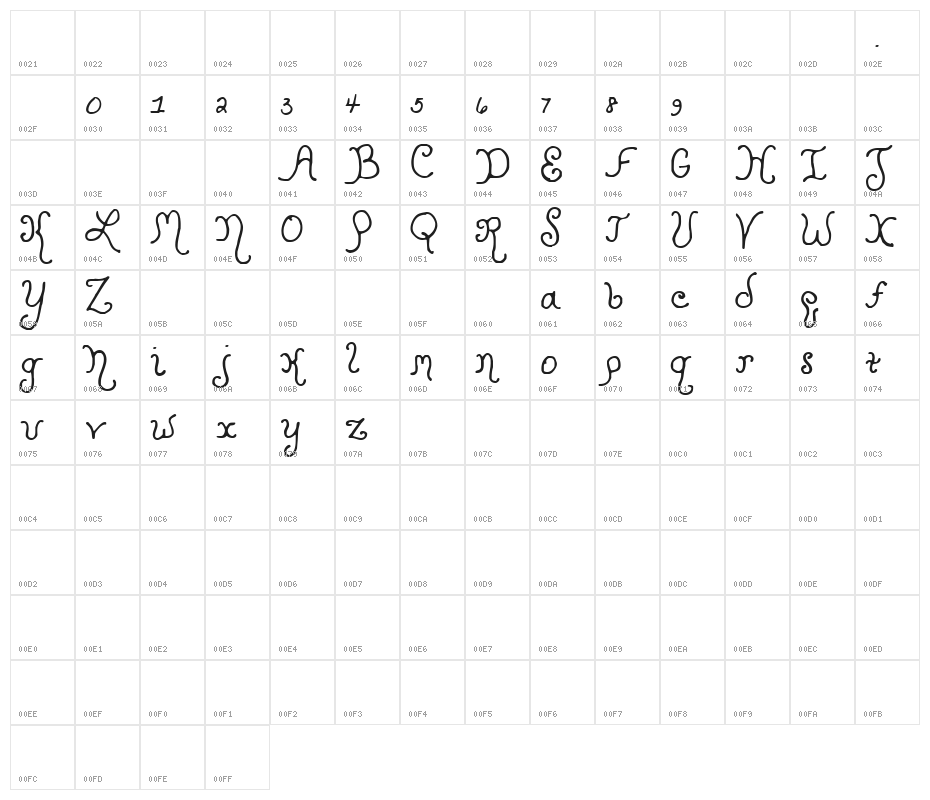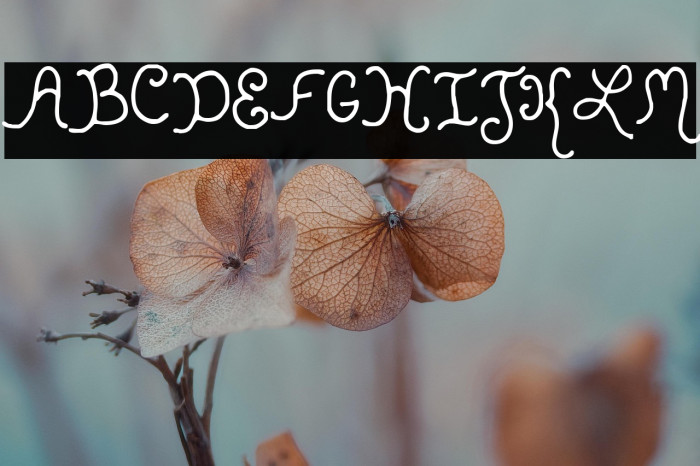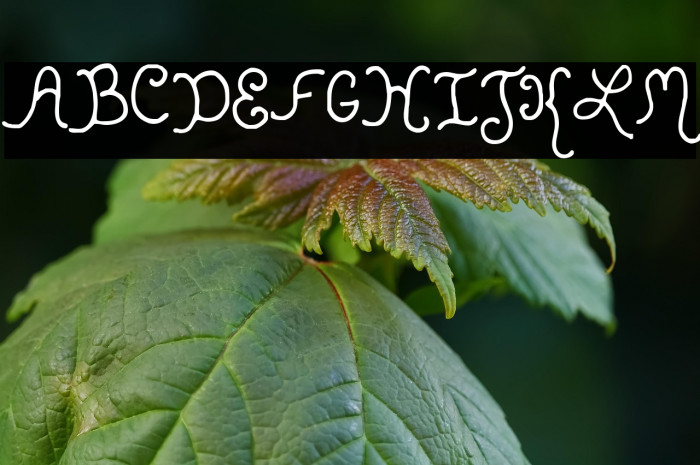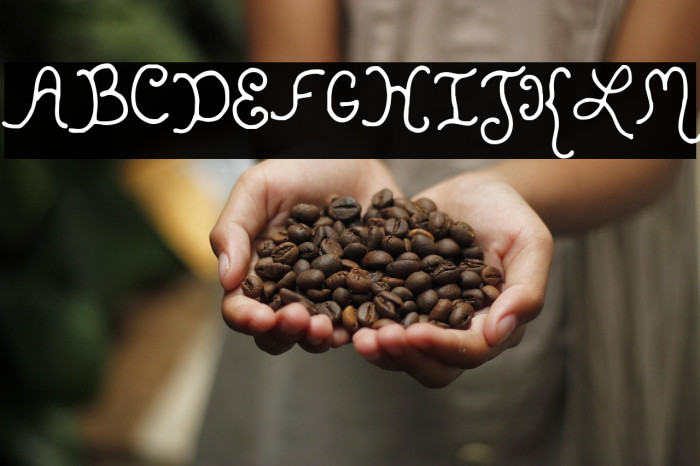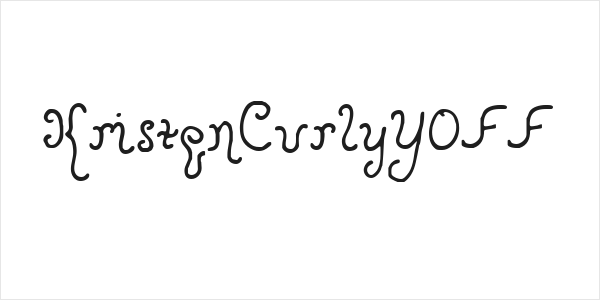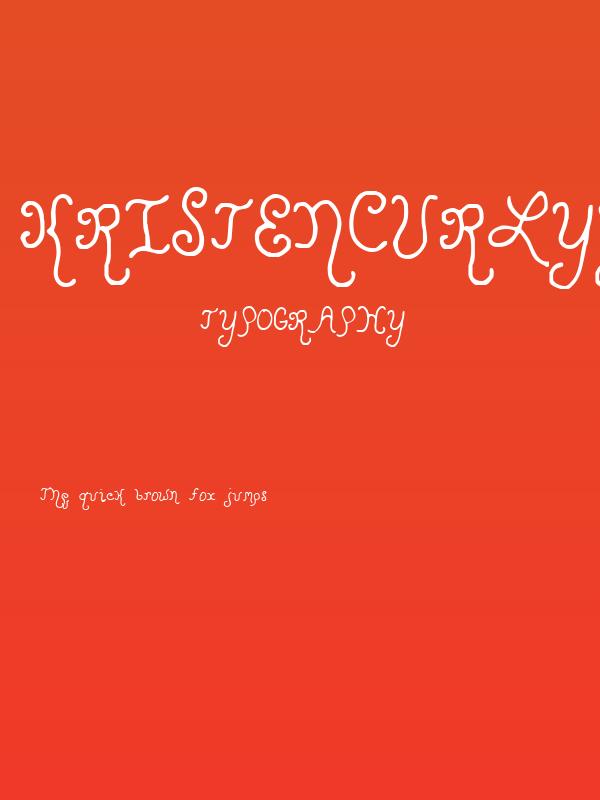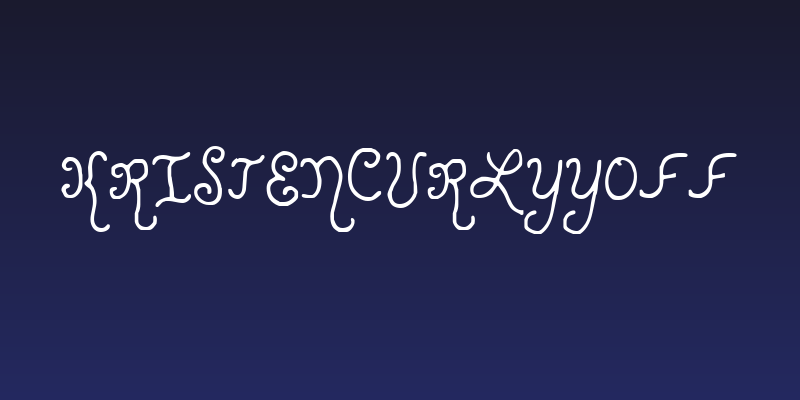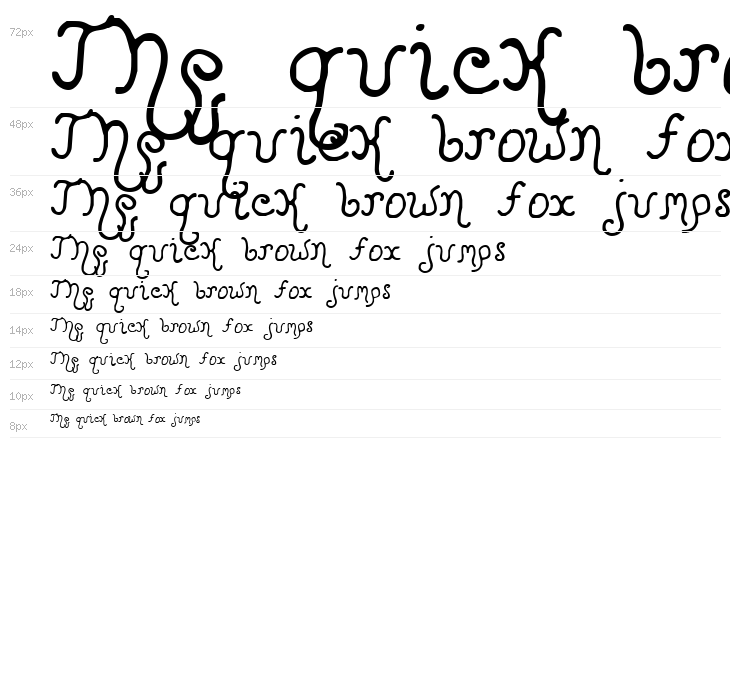
KristenCurlyYOFF Font
KristenCurlyYOFF Description
This font features a playful and whimsical style with curly and flowing lines that give it a hand-drawn appearance. The uppercase letters are characterized by their unique loops and swirls, creating a sense of movement and creativity. The lowercase letters maintain this playful aesthetic, with some characters having exaggerated curves and flourishes. The numbers are consistent with the overall style, featuring rounded edges and a slightly irregular form that adds to the charm. The special characters blend seamlessly with the rest of the font, maintaining the same curly and artistic design. This font is ideal for projects that require a fun and informal touch, such as children's book covers, greeting cards, or playful branding.
| Overall Style | Playful, Whimsical, Artistic |
| Proposed Projects | Ideal for children's books, greeting cards, playful branding, and creative invitations. |